Best Free Variable Fonts for UI and Web Design (2026)
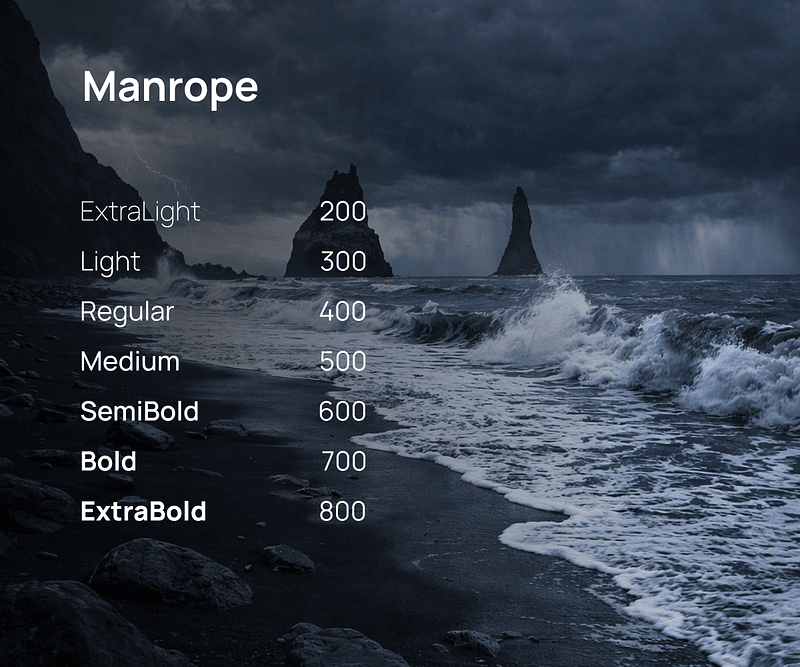
Looking for free variable fonts that actually work in UI? A practical list of the best variable fonts for product, web, and interface design in 2026.
Variable fonts didn’t arrive with much noise.
They didn’t replace anything overnight. They just slowly became useful.
Instead of loading multiple font files for different weights and styles, a variable font gives you continuous control inside a single file. Less payload, fewer compromises, and more consistency across real interfaces.
If you design products, dashboards, SaaS tools, or web interfaces, this matters more than it sounds. Typography decisions show up everywhere in UI, especially at small sizes and across breakpoints.
This list focuses on free variable fonts that actually hold up in production UI, not display typefaces and not typographic experiments. Every font here was chosen because it behaves well in real interfaces.
What actually makes a font “variable”?
Most designers are used to fonts with fixed weights:
Regular, Medium, Bold.
A variable font works differently.
A simple example
You’re designing a button label.
With a regular font:
- 400 feels slightly too light
- 500 feels slightly too heavy
- You have to pick one
With a variable font:
- You can use 450
- Or 480
- Exactly where it feels right
Same font. Same layout.
A very different level of control.
That’s the difference between having many weights and having a continuous typographic range.
Why variable fonts work so well for UI
Variable fonts aren’t about visual tricks.
They’re about stability.
They become especially useful when:
- You design responsive layouts
- You need several weights without loading several files
- You work with design systems or shared components
- Performance and consistency matter
In good UI, typography doesn’t draw attention to itself. It just stays out of the way.
Inter
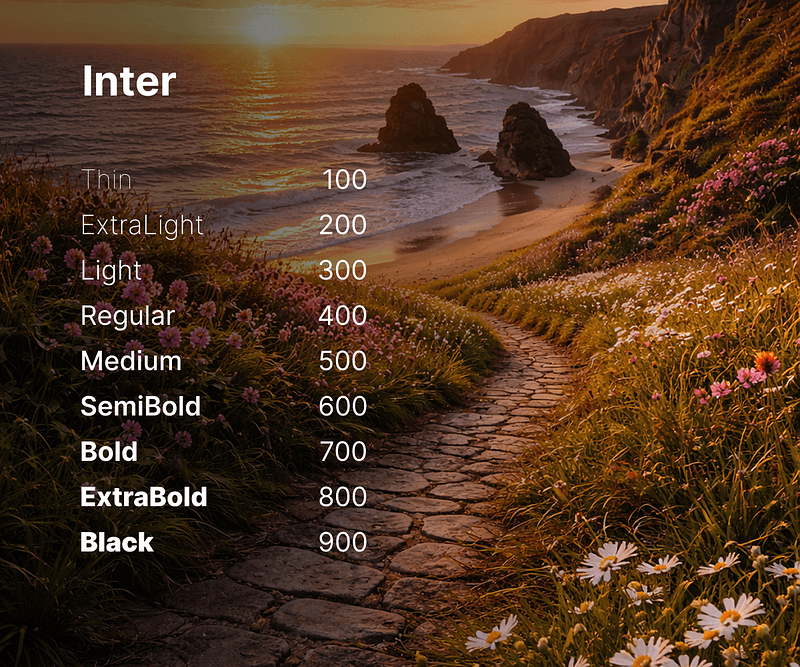
Best for: Product UI, dashboards, SaaS platforms
Inter is one of the most widely used UI fonts today, and for good reason. It was designed specifically for screens, with strong readability at small sizes and very predictable behavior across weights.
Why it works well:
- Clear, readable letterforms in dense UI
- Designed from the start for interfaces
- Broad language and symbol support
Good to know:
It’s very common. If visual differentiation matters, it often works best as a neutral base paired with a more expressive secondary font.
Source Sans 3
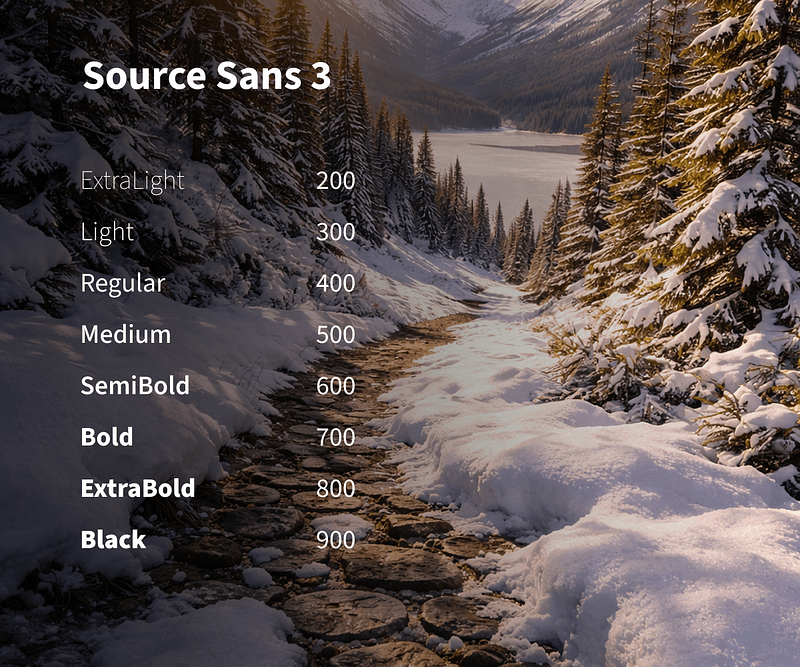
Best for: Content-heavy interfaces, text-driven products
Source Sans 3 is a refined evolution of a familiar typeface. The variable version feels calm, balanced, and easy to read over long sessions.
Why it works well:
- Professional, unobtrusive tone
- Excellent readability for long text
- Handles responsive layouts gracefully
Roboto Flex
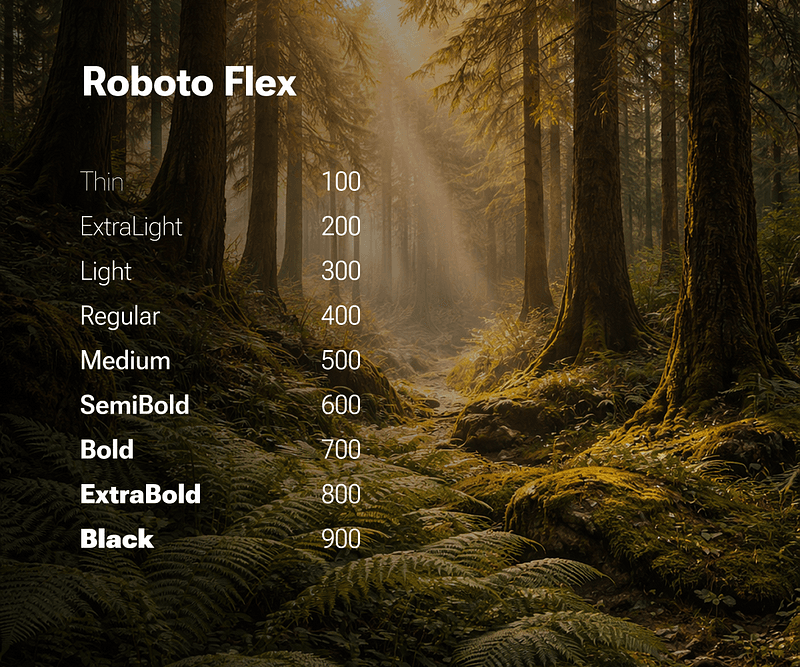
Best for: Advanced design systems, deep typographic control
Roboto Flex was built as a variable font from day one. It includes a wide range of axes and allows precise control over weight, width, and optical size.
Why it works well:
- Extremely flexible
- Ideal for token-based typography systems
- One file can replace an entire font family
Good to know:
It’s powerful, and easy to overuse. Best suited for teams that know how to define clear constraints.
Manrope
Best for: Modern interfaces, marketing sites
Manrope sits between functional and expressive. It feels contemporary and friendly without becoming distracting in UI contexts.
Why it works well:
- Clean, modern character
- Good contrast across weights
- Works well for approachable, product-led design
Space Grotesk
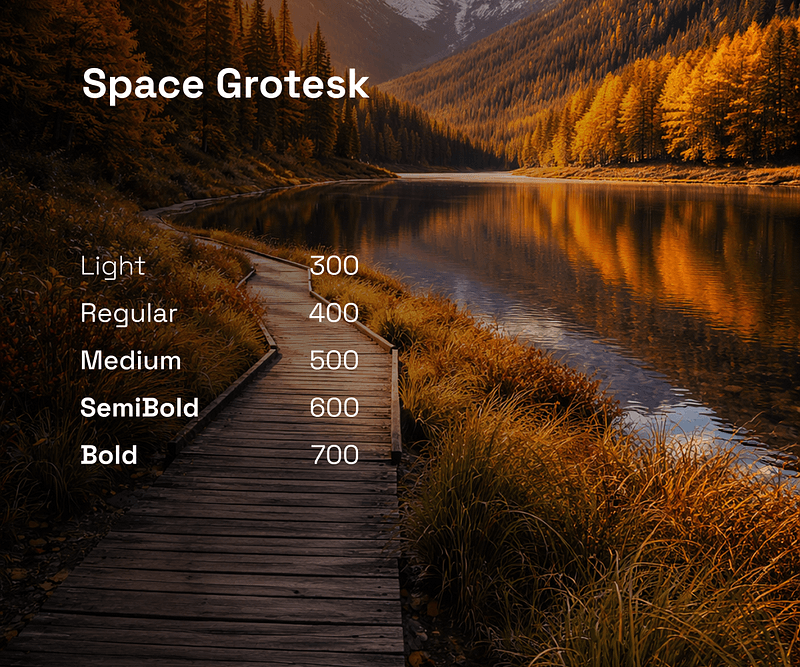
Best for: Creative products, brand-forward interfaces
Space Grotesk brings personality without sacrificing usability. It’s often used in products that want a distinctive feel without drifting into decoration.
Why it works well:
- Clear typographic voice
- Still readable in interface contexts
- Strong for headings and key UI elements
IBM Plex Sans Variable
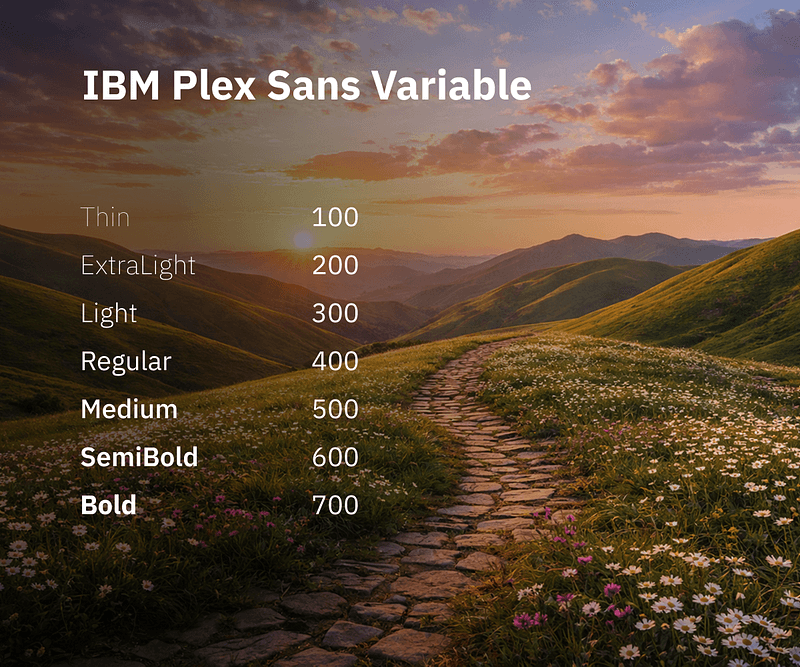
Best for: Complex products, enterprise tools
IBM Plex Sans was designed for information-heavy systems. It feels structured, reliable, and very clear even in crowded layouts.
Why it works well:
- Strong hierarchy across weights
By 2026, variable fonts aren’t a trend anymore.
They’re just part of doing UI work properly.